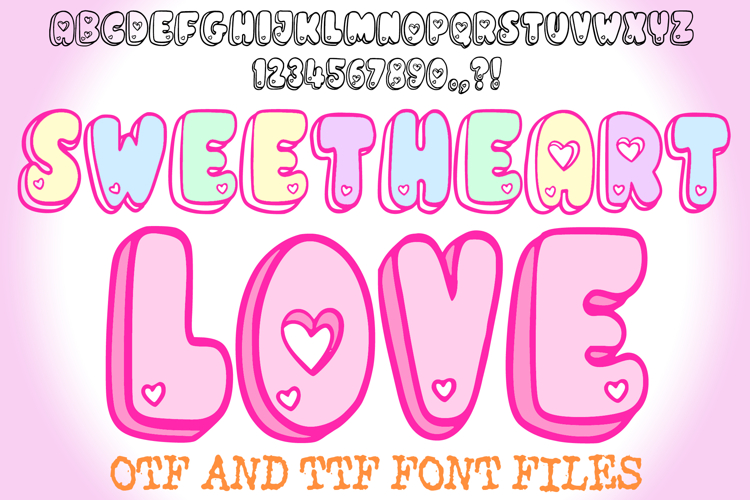
Sweetheart Love Valentines Day Font Heart Cute Letters Handmade Display by Squeeb Creative
Sweetheart Love Valentines Day Font Heart Cute Typeface Bold
Put a little love in every letter with Sweetheart Love Font! Taking inspiration from the popular "ne…